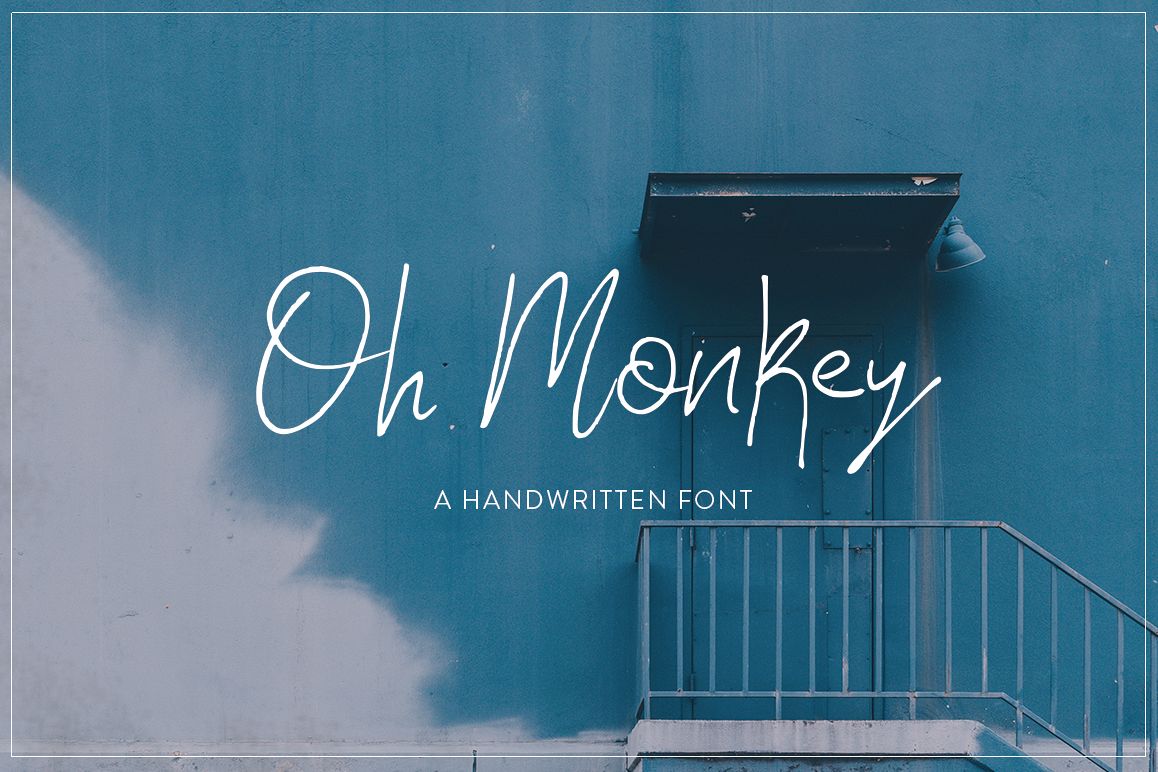
Oh Monkey is a slinky new script font from Salt & Pepper Designs. Hand-drawn and natural, it can add a hand crafted look to your designs. The irregular flow creates an almost 'signature' look. Enjoy!